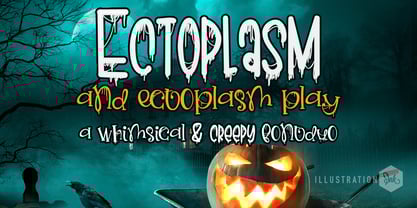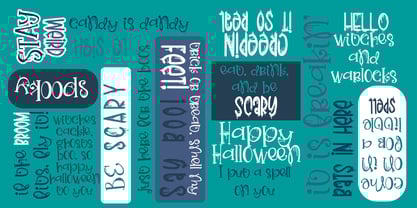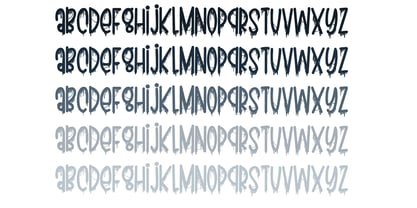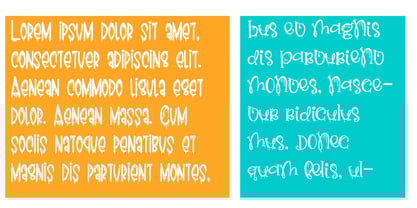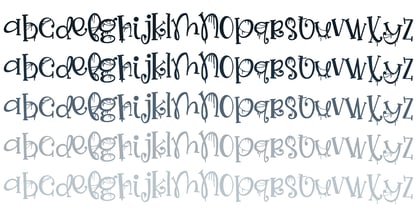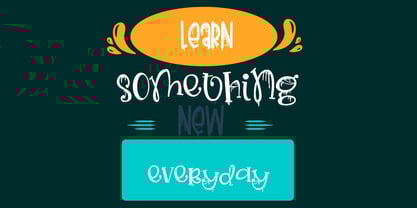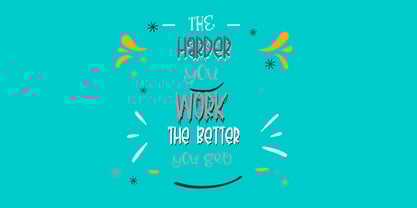
ZP Ectoplasm
by Illustration Ink
The ZP Ectoplasm Font Family was designed by Illustration Ink and published by Illustration Ink. ZP Ectoplasm contains 12 styles and family package options. More about this family
This hand-crafted font duo is a fun but creepy Halloween font dripping with ectoplasm and a perfectly coordinated playful print. Hand-crafted fonts can be either formal or informal, and they can be used for a variety of purposes. Some of the characteristics of handwritten fonts include: The letters are not perfectly uniform in size or shape. There may be slight variations in the spacing between letters and words. The font may have a "wiggly" or "squiggly" appearance. The font may be difficult to read at small sizes. Handwritten fonts can be a great way to add a casual touch to your designs. They can also be used to create a sense of nostalgia or whimsy. However, it is important to choose a handwritten font that is appropriate for the project you are working on. A formal handwritten font may not be appropriate for a casual invitation, while an informal handwritten font may not be appropriate for a corporate document.